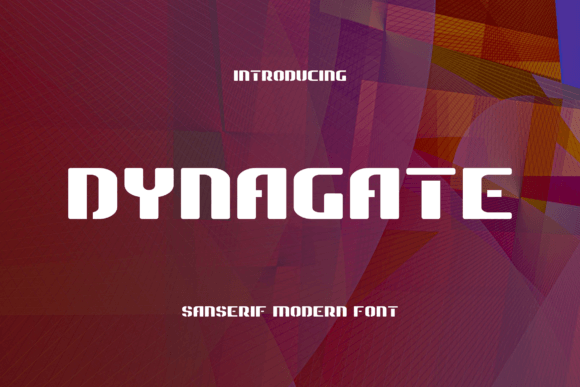
Dynagate Font: The Ultimate Sans Serif Typeface for Modern Designs
In the world of typography, fonts play a crucial role in conveying the message and tone of a design. With numerous font options available, designers often find themselves overwhelmed when choosing the perfect typeface for their projects. However, if you’re looking for a font that exudes modernity and sophistication, look no further than Dynagate. This stunning sans serif typeface has been making waves in the design community, and for good reason. In this article, we’ll delve into the features and benefits of Dynagate, and explore why it’s becoming a go-to choice for designers worldwide.
What is Dynagate Font?
Dynagate is a modern sans serif typeface that boasts a clean and minimal design. Its sleek lines and beautiful curves make it an ideal choice for designers seeking a professional and polished look. The font’s elegant appearance is perfect for a wide range of applications, from corporate branding to digital marketing materials.
The Benefits of Using Dynagate
So, what sets Dynagate apart from other fonts? Here are just a few benefits of using this stunning typeface:
- Modern and Sophisticated: Dynagate’s sleek design makes it perfect for modern brands and businesses looking to establish a professional online presence.
- Clean and Minimal: The font’s clean lines and minimal design ensure that it won’t distract from the content, making it ideal for body text and headlines.
- Highly Readable: Dynagate’s readability is exceptional, making it perfect for both digital and print applications.
- Elegant Curves: The font’s beautiful curves add a touch of elegance to any project, making it perfect for luxury brands and high-end designs.
Design Applications for Dynagate
Dynagate’s versatility makes it suitable for a wide range of design applications. Here are just a few examples:
- Branding and Identity: Use Dynagate to create a professional and modern brand identity that sets your business apart.
- Digital Marketing: The font’s clean design makes it perfect for digital marketing materials, such as social media graphics and email campaigns.
- Print Design: Dynagate’s readability and elegance make it ideal for print designs, such as brochures, flyers, and business cards.
- Web Design: Use Dynagate to create a modern and sophisticated website that showcases your brand’s personality.
Typography Tips for Using Dynagate
To get the most out of Dynagate, here are some typography tips to keep in mind:
- Pair with Bold Fonts: Pair Dynagate with bold fonts to create a striking contrast and add visual interest to your design.
- Experiment with Line Spacing: Adjust the line spacing to create a sense of hierarchy and emphasize important information.
- Use Font Sizes Wisely: Use font sizes to create a clear visual hierarchy and guide the reader’s attention.
Font Pairing Suggestions for Dynagate
To create a harmonious design, it’s essential to pair Dynagate with complementary fonts. Here are some font pairing suggestions:
- Montserrat: This modern sans serif font pairs perfectly with Dynagate, creating a cohesive and professional look.
- Lato: This elegant sans serif font complements Dynagate’s clean design, creating a sophisticated and modern aesthetic.
- Raleway: This elegant serif font pairs nicely with Dynagate, adding a touch of sophistication and elegance to your design.
In conclusion, Dynagate is a stunning sans serif typeface that offers a modern and sophisticated design solution for designers. Its clean and minimal design, beautiful curves, and high readability make it perfect for a wide range of applications. Whether you’re working on a branding project, digital marketing materials, or print design, Dynagate is an excellent choice. With its versatility and elegance, it’s no wonder that Dynagate is becoming a go-to font for designers worldwide.